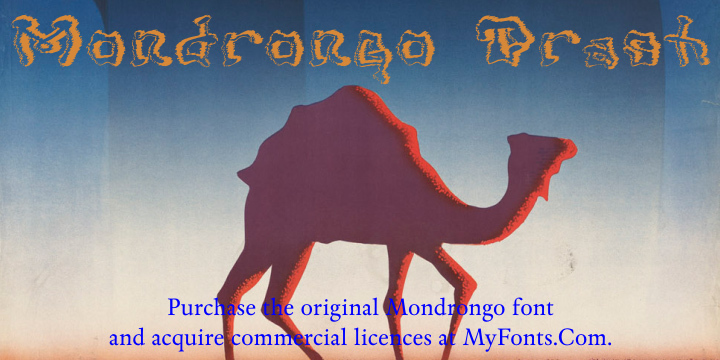
Mondrongo Gradient by Paulo W of Intellecta Design is a free Thai-style display font with rounded, ornamental forms and a distinctly graphic finish. Repeated horizontal breaks slice through the broad strokes, creating a striped texture that gives the flowing letters an unusual printed or screen-filtered appearance.
Thai cultural themes make it suited to festival posters, restaurant branding, music artwork, and specialty food packaging with an experimental edge. The striped lettering can echo woven patterns, layered paper, or linear illustration, letting the type become part of the surrounding imagery.